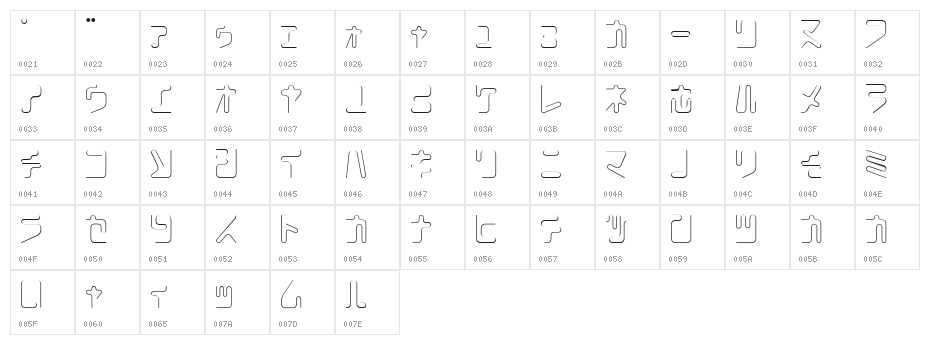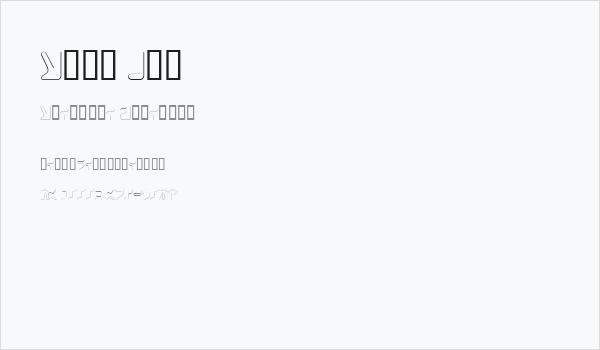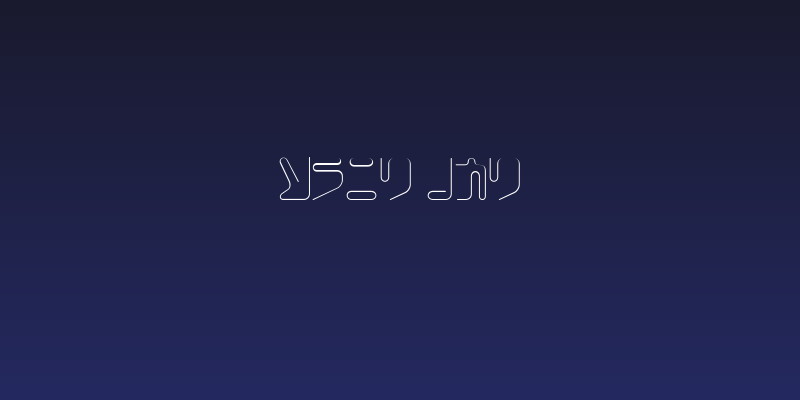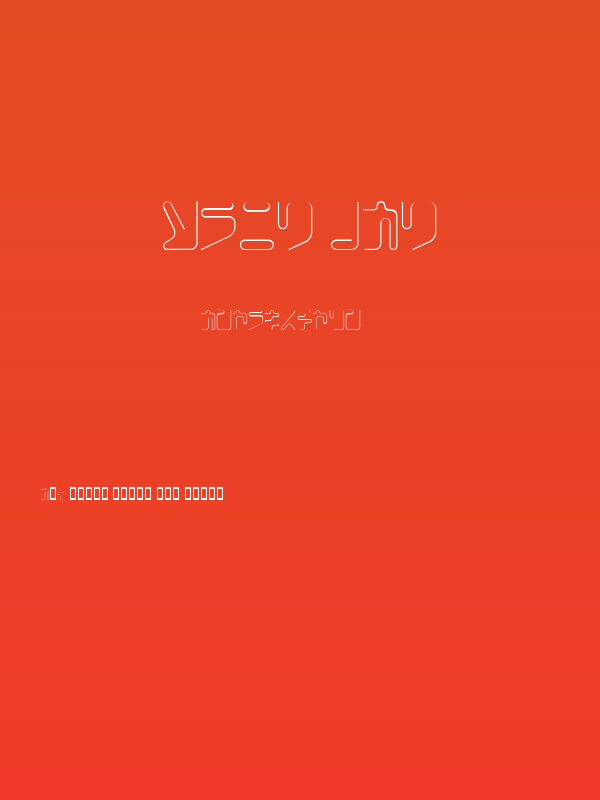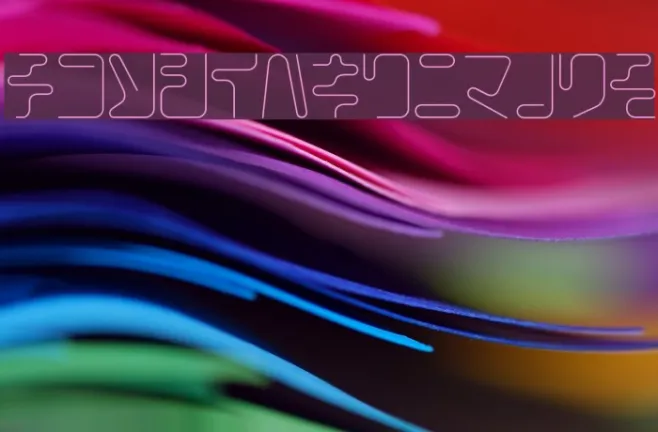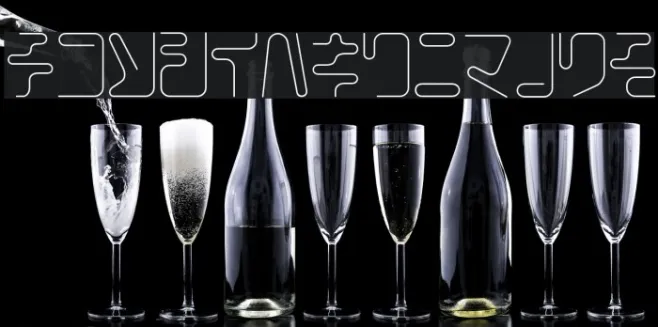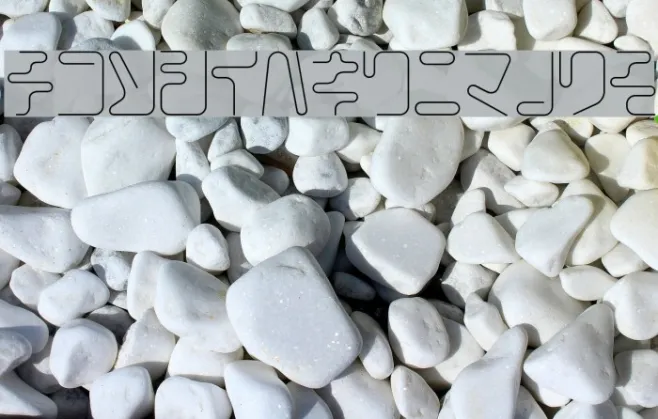
Coil Ktl Font
Coil Ktl Description
This font features a unique, futuristic design with a geometric and abstract style. The characters are composed of continuous lines that form angular and rounded shapes, creating a sense of movement and modernity. The font lacks traditional serifs and instead relies on its distinct line work to convey a sense of innovation and creativity. The uppercase and lowercase letters maintain a consistent design language, with the uppercase being more pronounced and the lowercase offering a slightly softer appearance. The numerals and special characters follow the same design principles, ensuring uniformity across all glyphs. This font is ideal for projects that require a modern, tech-inspired aesthetic.
| Proposed Projects | Ideal for tech branding, sci-fi posters, digital art, and innovative product packaging. |